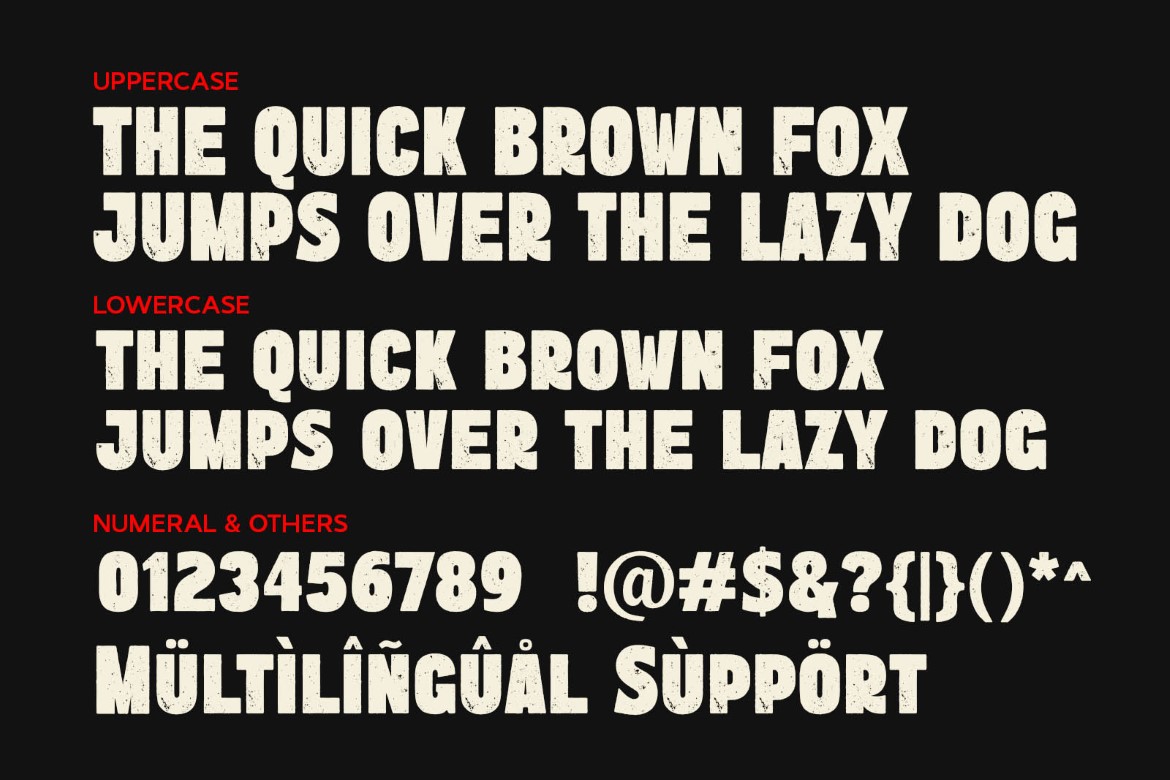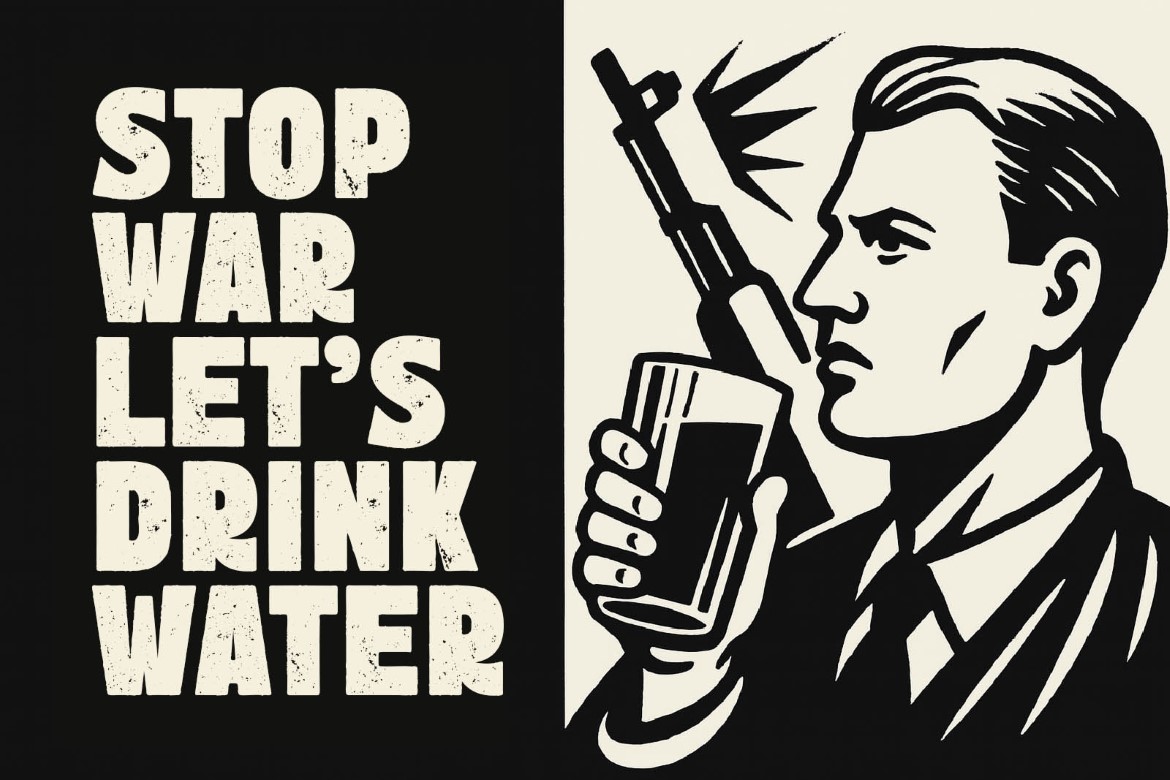
Drunk Heaven Font – Bold, Gritty, and Loud by PrimeFont
Drunk Heaven is a bold grunge display font from PrimeFont, designed to deliver raw power and attitude to your visuals. With its distressed texture and strong sans serif form, it's perfect for posters, music artwork, magazine titles, ads, streetwear branding, or any bold statement.
Whether you’re designing for a rock band, a rebellious brand, or an eye-catching editorial, Drunk Heaven adds energy and impact. This font doesn’t whisper—it shouts.
Key Features:
Heavyweight grunge style with bold presence
Ideal for music, ads, magazines, and poster headlines
Designed by PrimeFont for bold branding
Includes uppercase letters, numbers, and punctuation
Bring loud character to your next design with Drunk Heaven by PrimeFont.